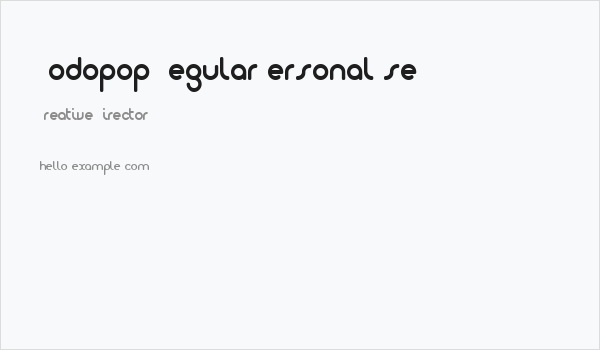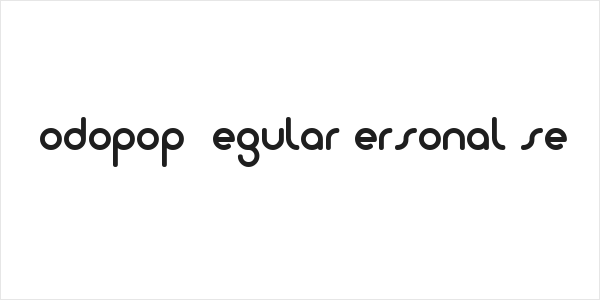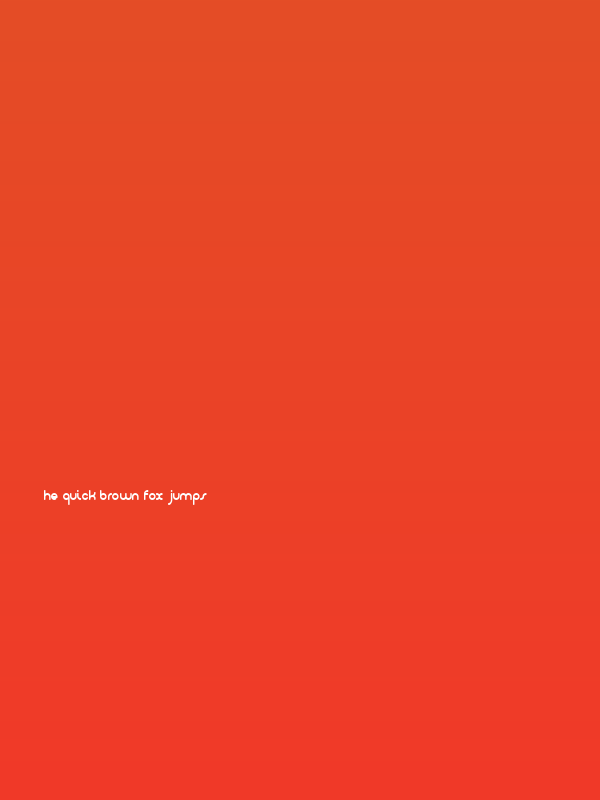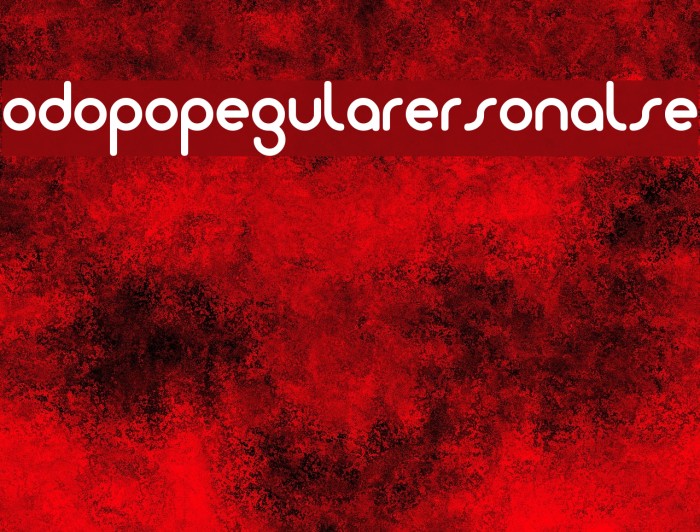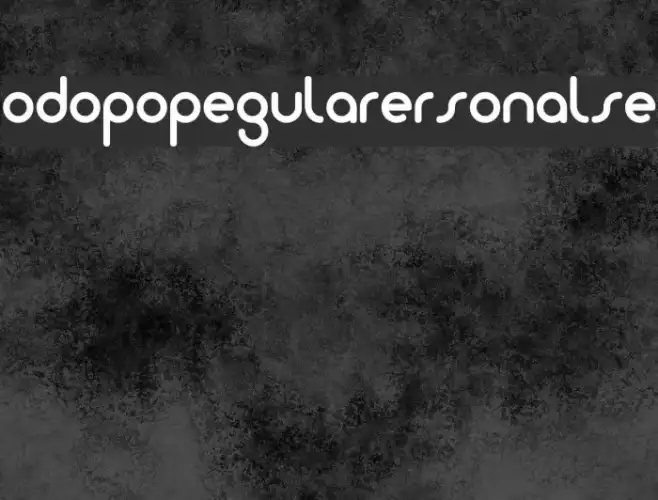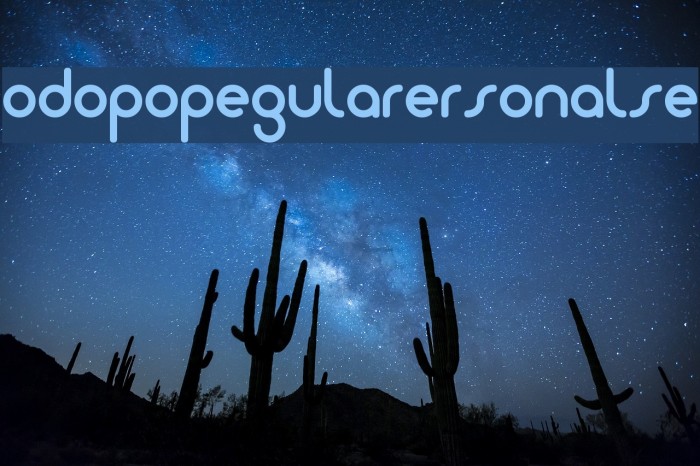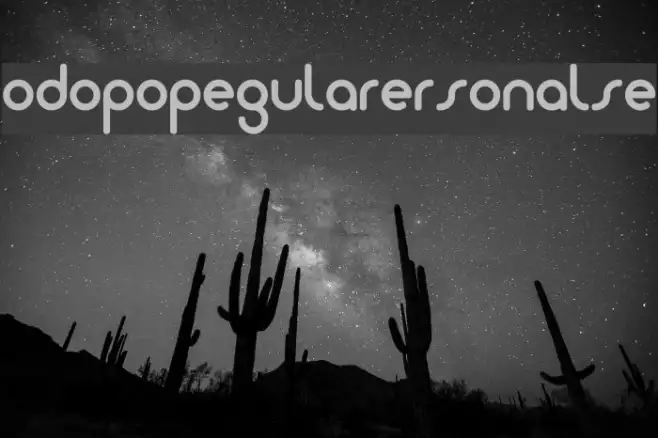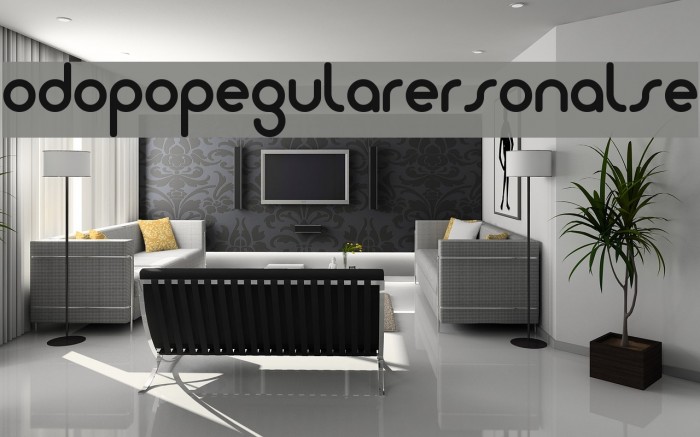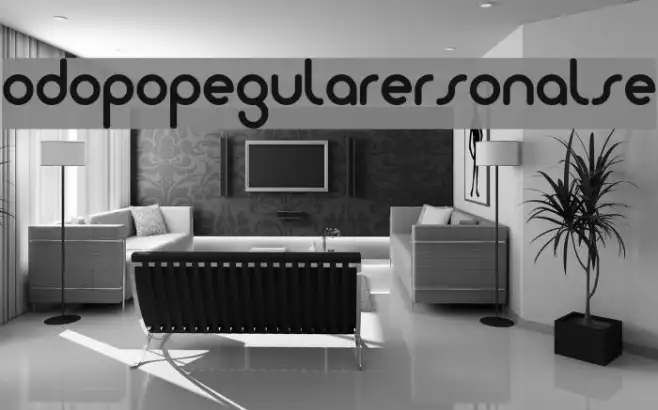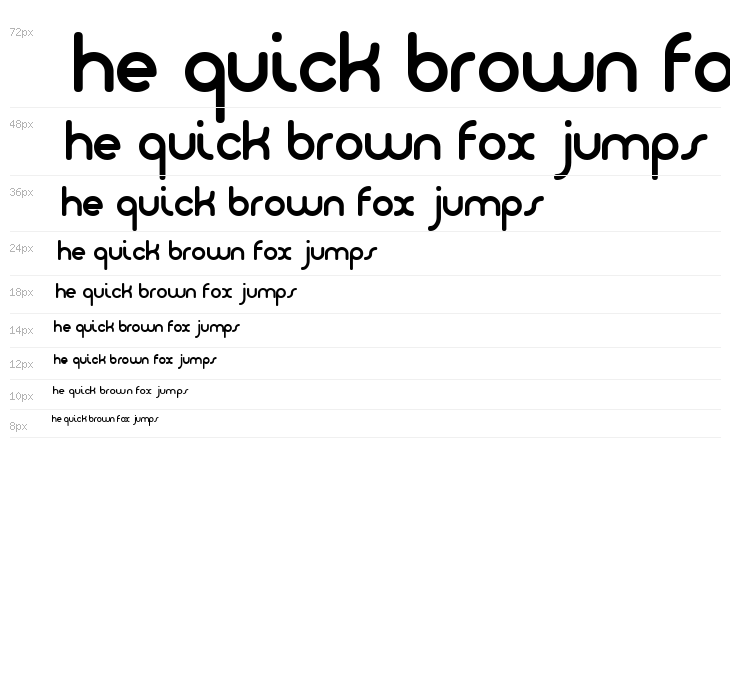
Dodopop-RegularPersonalUse Font
Dodopop-RegularPersonalUse Description
This playful and rounded typeface features a modern, minimalist design with smooth curves and a friendly appearance. Each character is crafted with a consistent stroke width, giving it a uniform and cohesive look. The letters are slightly elongated, adding a unique touch to the overall style. The font's simplicity and clarity make it highly legible, even at smaller sizes. Its whimsical nature is perfect for projects that require a touch of fun and creativity, while maintaining a clean and professional aesthetic.
| Proposed Projects | Ideal for children's books, playful branding, creative posters, and modern web design. |